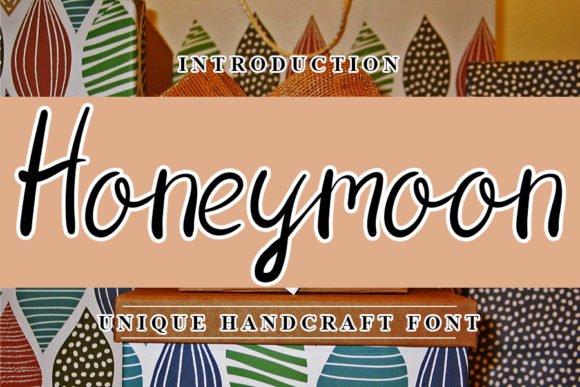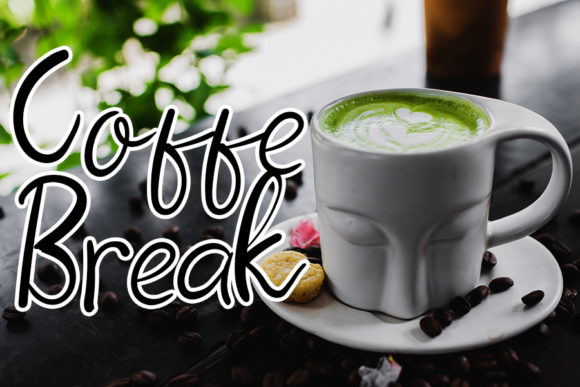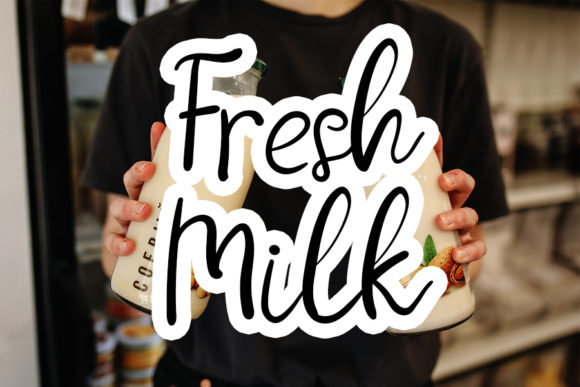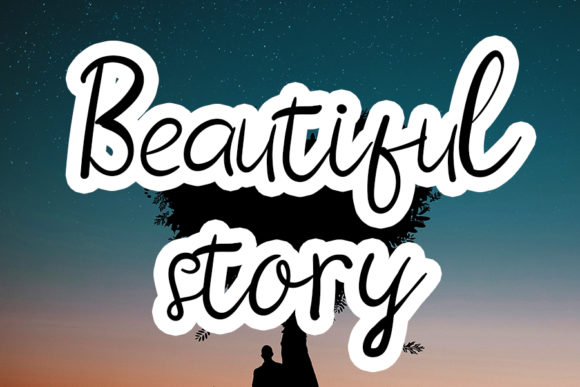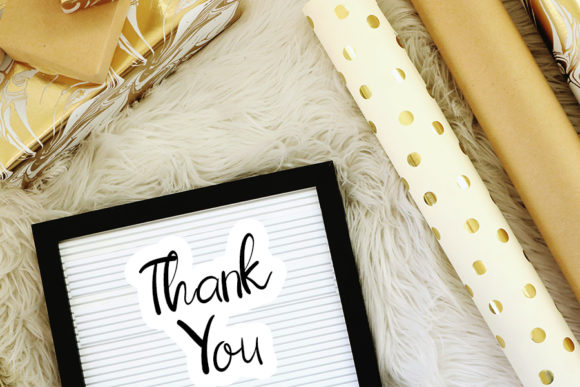
Honeymoon Font
About Honeymoon Font
Honeymoon is a handwritten font with a sweet, modern style. Its distinct and well rounded letters make this font a masterpiece. Fall in love with its incredibly versatile style and use it to create spectacular designs!